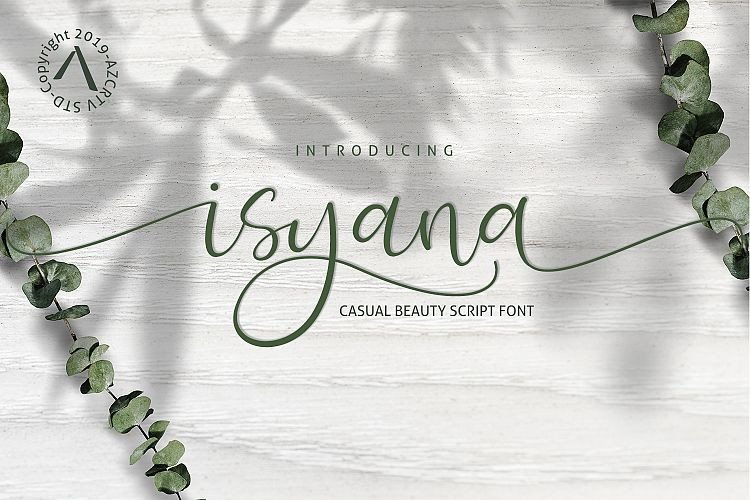
Isyana Calligraphy Font
Introduce Isyana Calligraphy Font, casual beauty script style letters with beautiful and flexible strokes that make a natural girly impression. This letter you can use for poster design projects, wedding invitations, congratulations, flyers, beautiful logos and more.